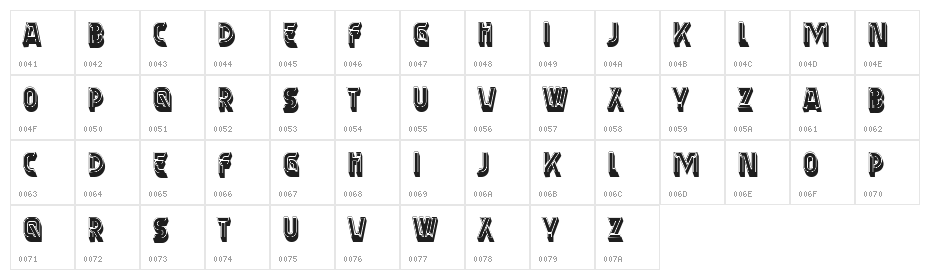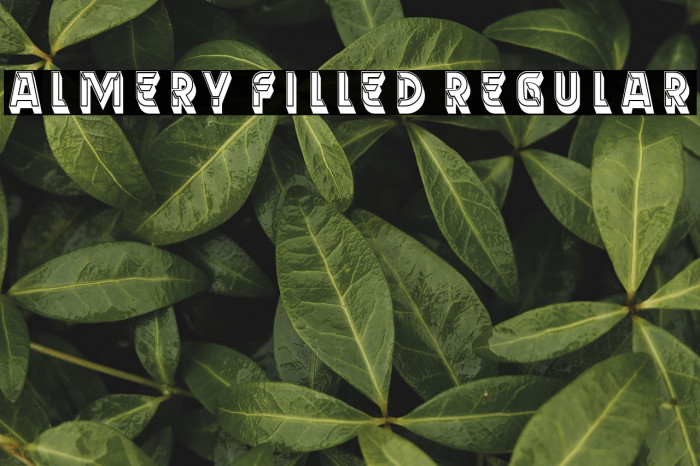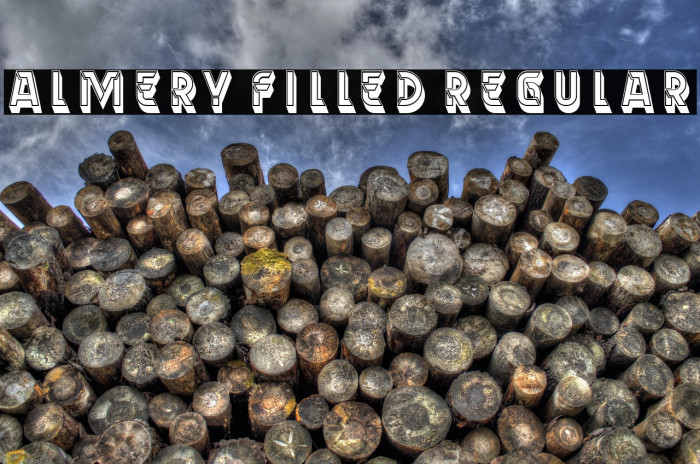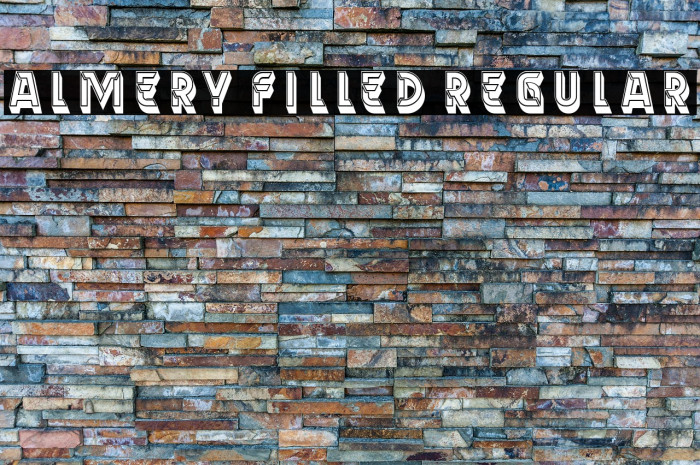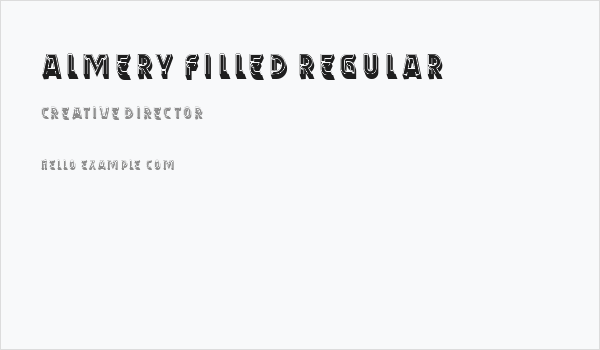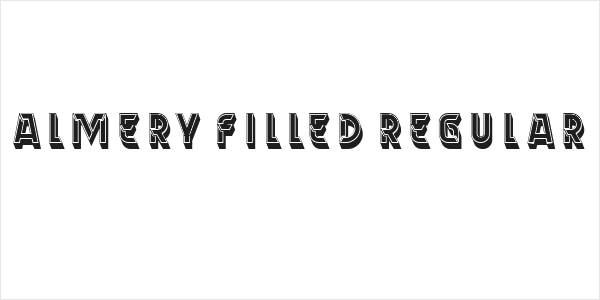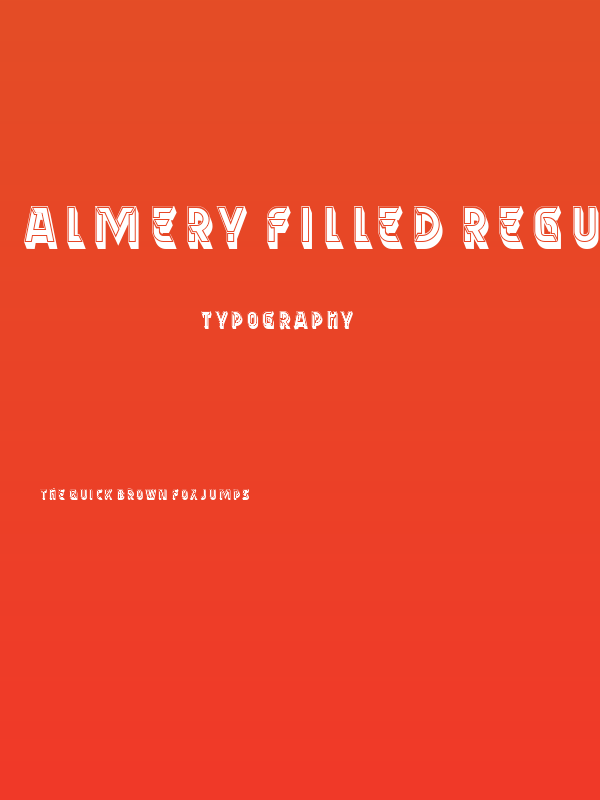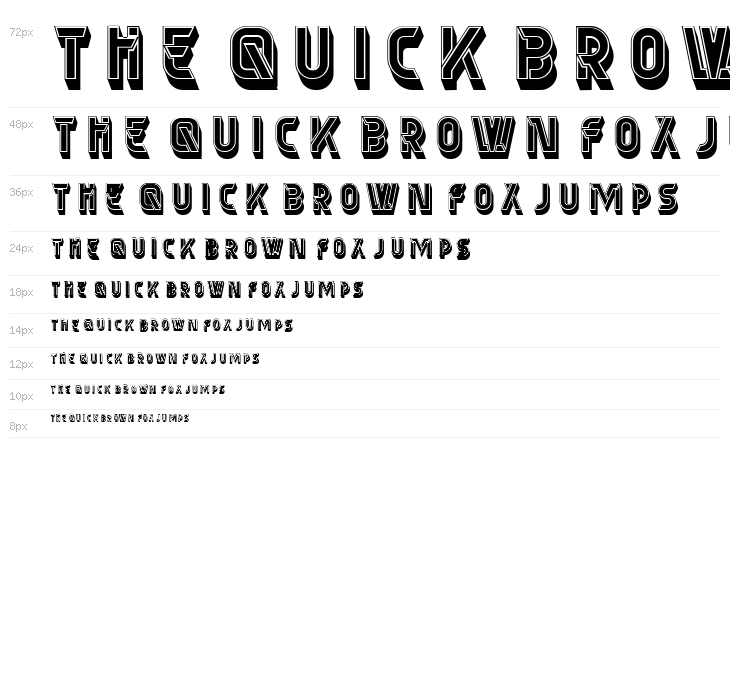
Almery Filled Regular Font
Almery Filled Regular Description
This font features a bold, geometric design with a filled interior and a distinct outline that gives it a three-dimensional appearance. The characters are constructed with sharp angles and straight lines, creating a modern and dynamic look. The uppercase letters are uniform in height, contributing to a cohesive and structured aesthetic. The font's boldness and unique style make it stand out, suitable for attention-grabbing headlines or titles. Its design is reminiscent of architectural elements, with a futuristic twist that adds to its visual appeal.